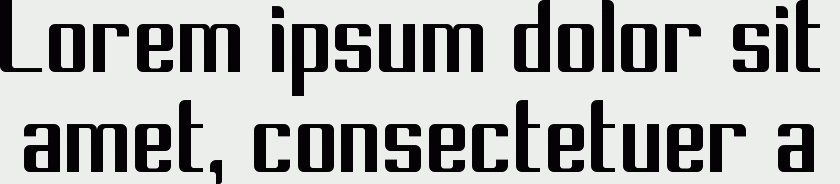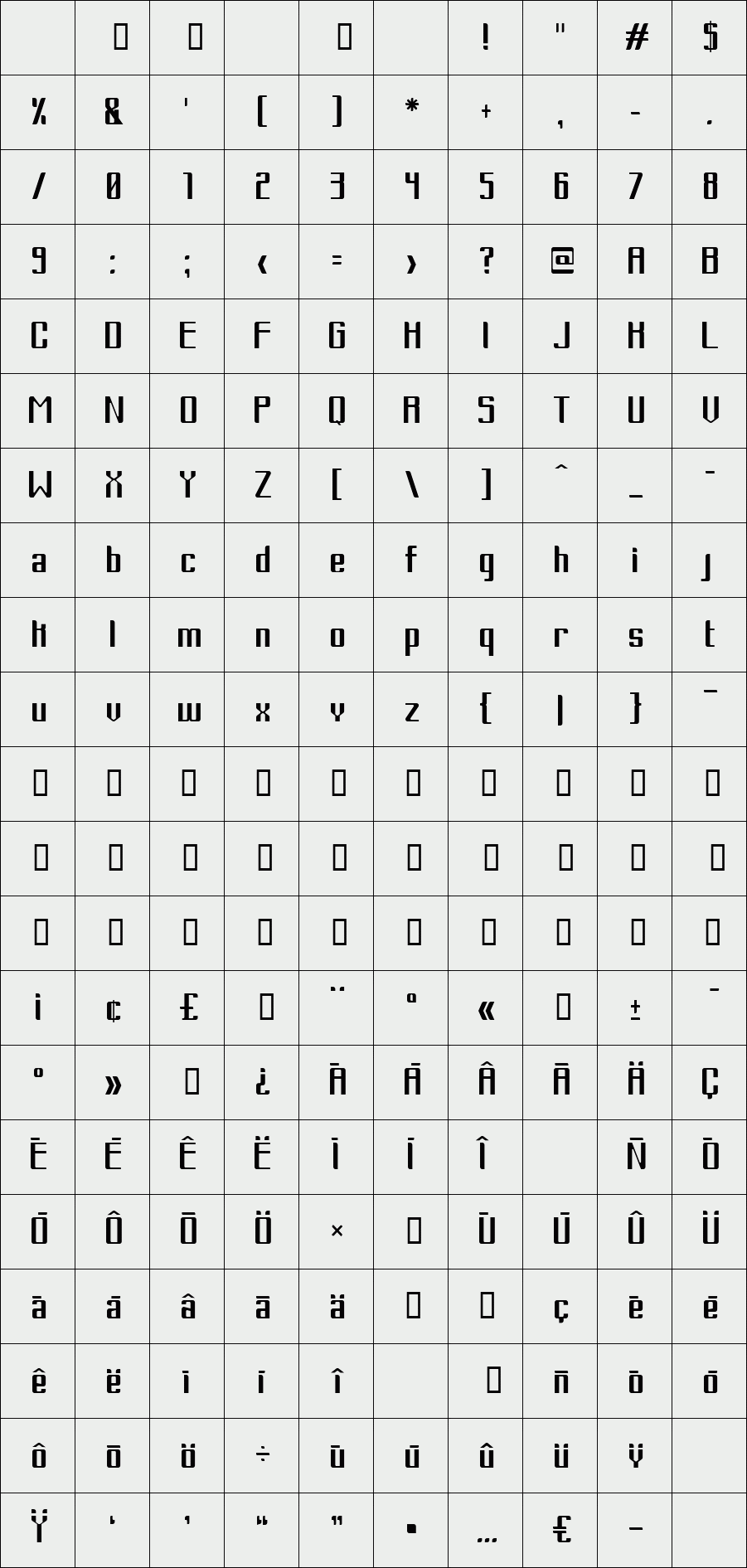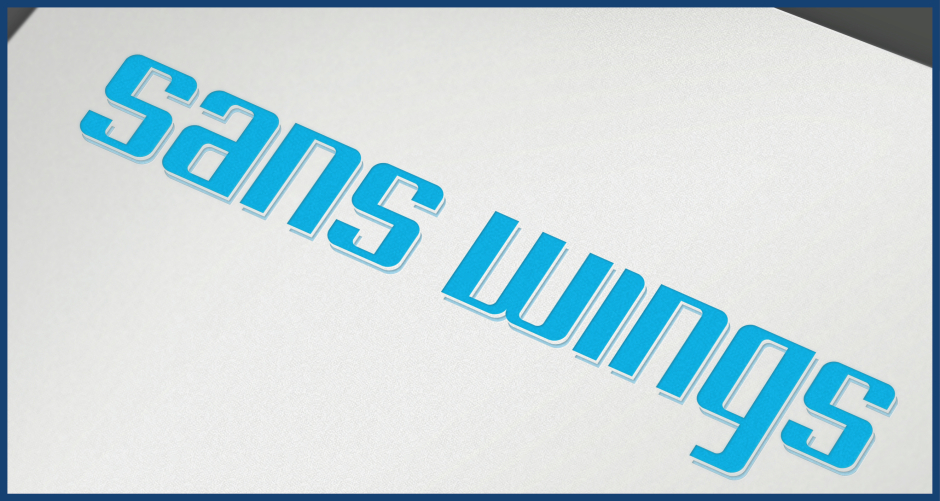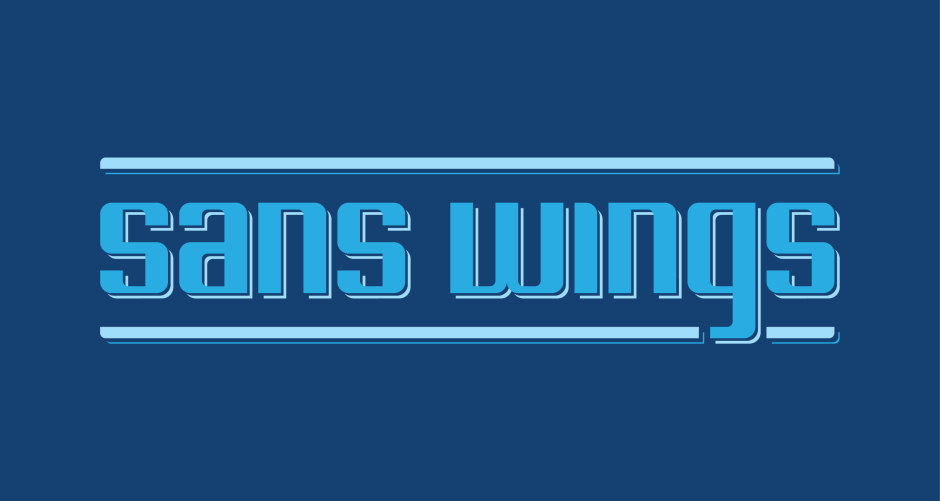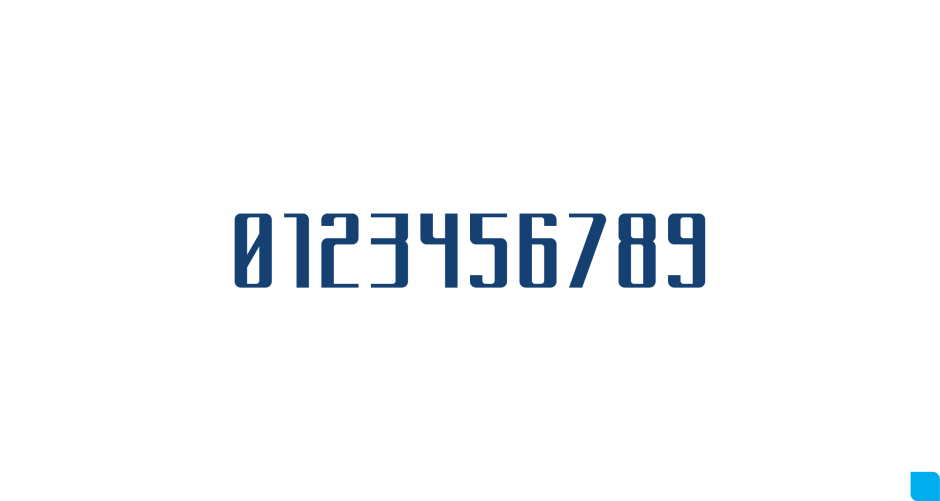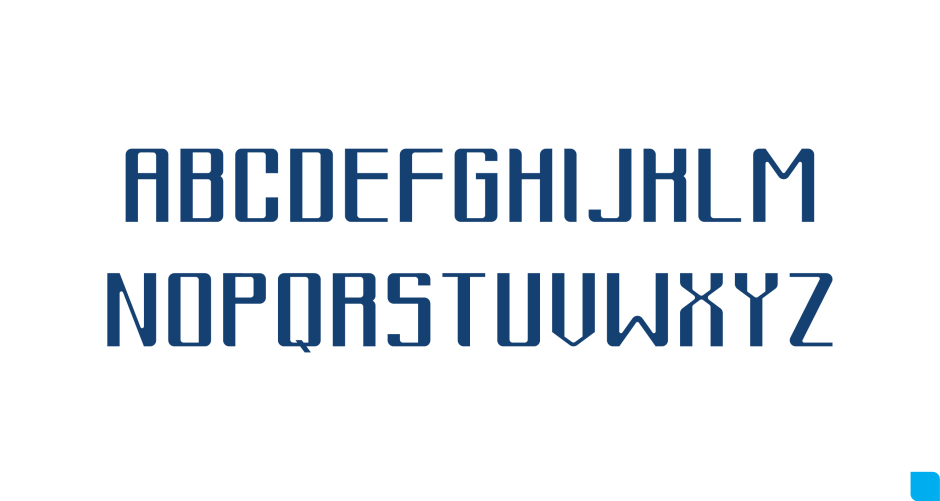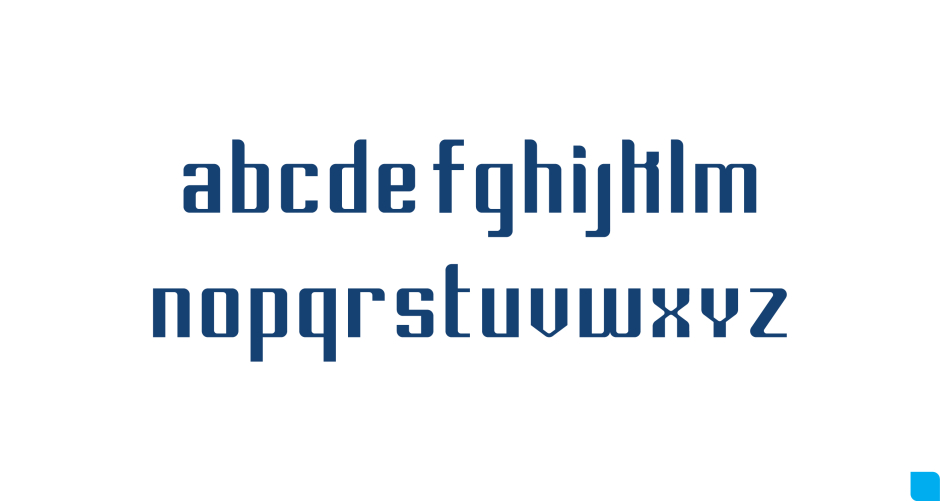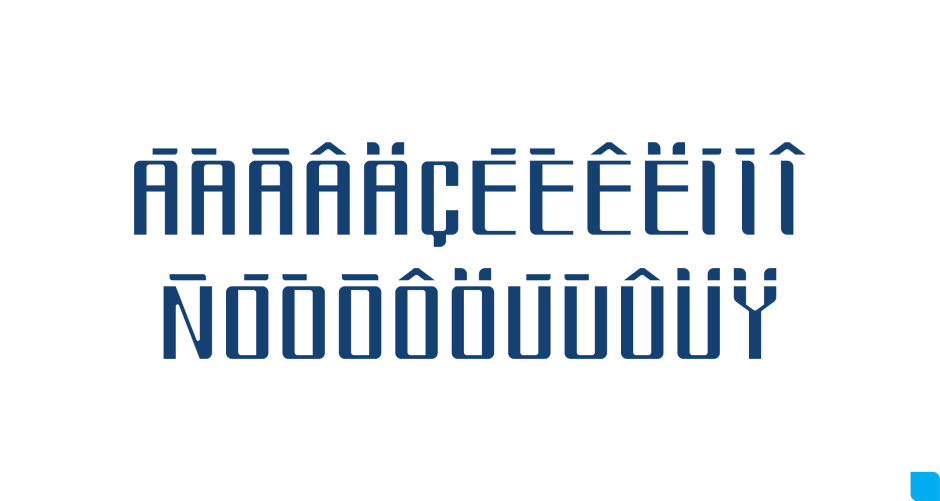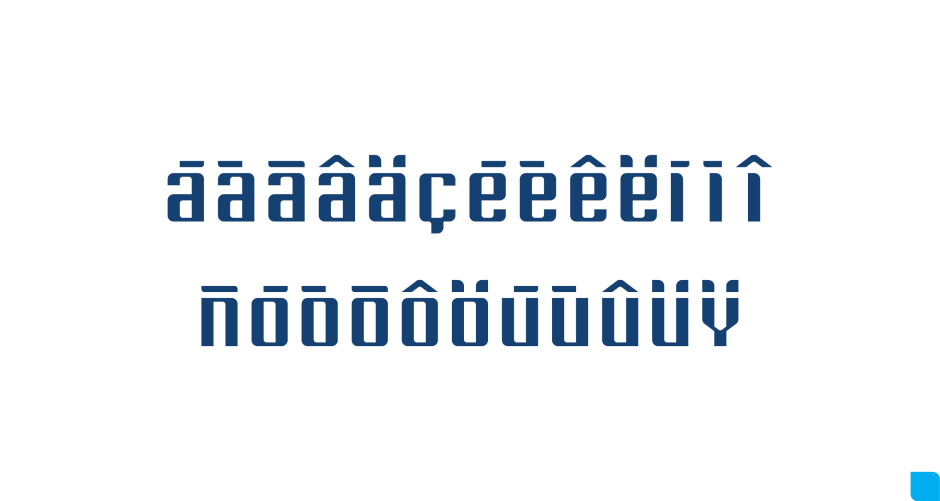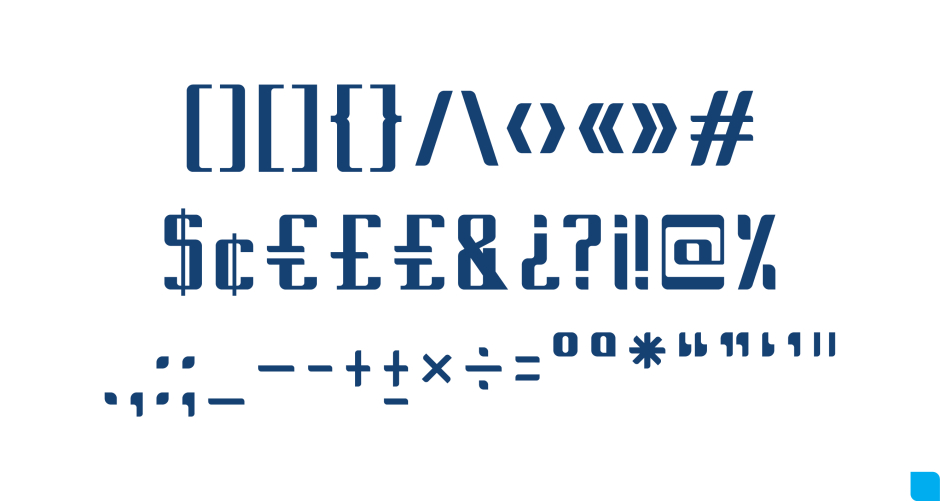
SansWings
The Wings Sans was created inspired by aviation, alternating curves (fuselage) and straight (wings and tail), so based on all proportion and aerodynamics of airplanes. The typography aims to pass sense of seriousness, reliability, smoothness and modernism.
It is a display font with recommended use for projects that enable its use in highlight and small blocks of text.